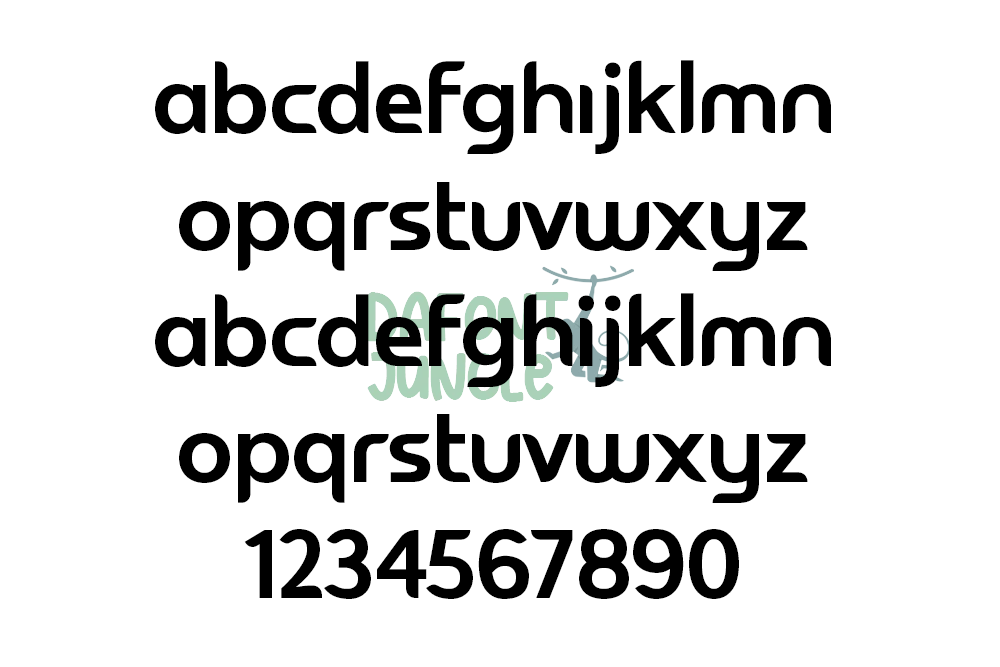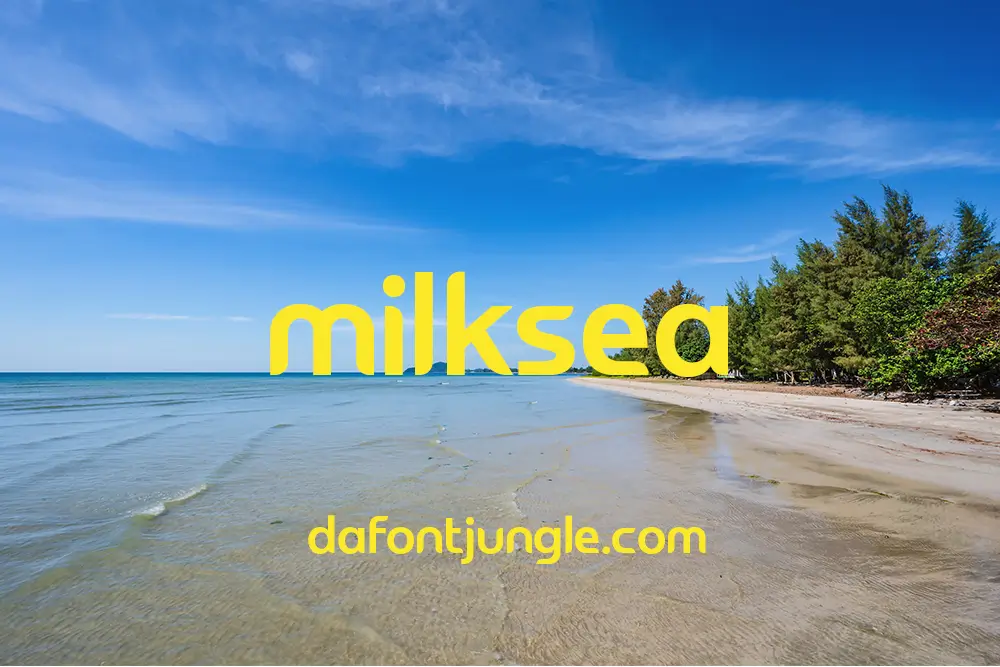
Milksea – Modern Sans Serif Font
Milksea is a sleek modern sans serif font designed by Drizy Studio. With its clean lines and stylish curves, it suits a wide range of modern projects—from beauty branding and fashion design to editorial layouts and digital interfaces. The font includes uppercase and lowercase letters, numbers, punctuation, ligatures, and multilingual support to give you creative flexibility.